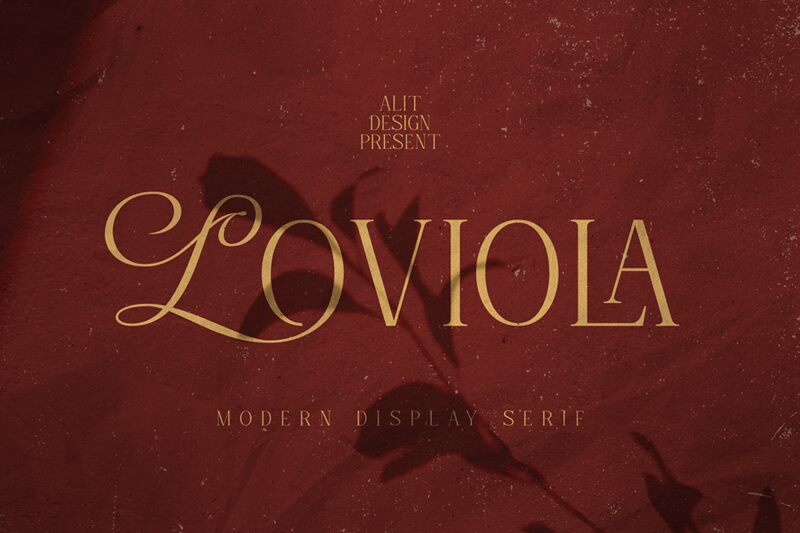
Loviola, crafted by Alit Design, stands out as a display font that blends elegance with modern flair. Its sweeping curves and fine lines suggest a bespoke quality, akin to calligraphy done by hand. The artful balance between its delicate form and impactful presence gives Loviola a versatile charm that captures attention.
This font's aesthetic is perfectly suited for branding, luxurious packaging, or upscale advertising campaigns where sophistication is key. Its distinct style would also lend itself well to editorial headlines or wedding invitations that require a touch of class. Loviola embodies grace and contemporary design in every stroke, making it an exquisite choice for projects aiming to leave an indelible impression.